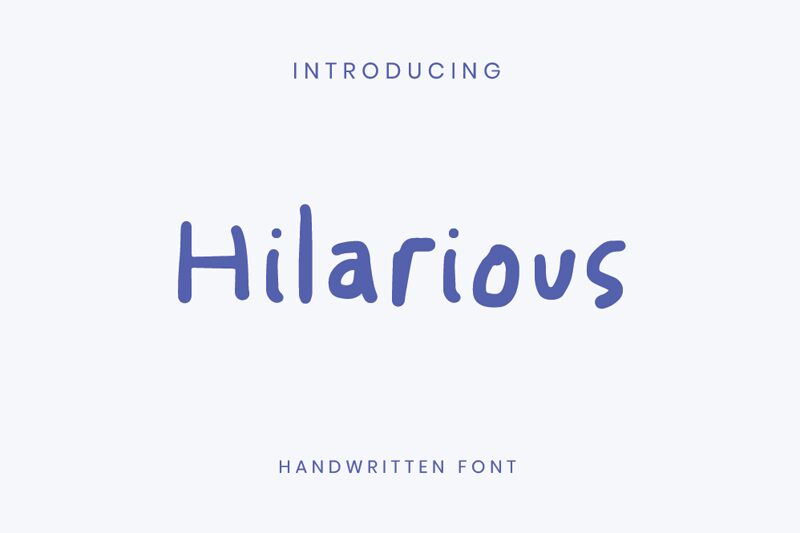
Hilarious HF font family by Just Handwritten Font is a freeware professional tool designed for informal and casual style. A modern handwritten style takes over after the core elements of each letter and number. They present a similar tone like the other lettering styles with the addition of simplicity and age. Versatile and with a universal field of usage, it fits old-school, modern, and experimental design concepts.
The Hilarious HF font family could be used as it to create websites, applications, and software. It can also serve as an inspiration for store signage, packaging labels, clothing branding, posters, album covers, and magazines. It will look beautiful on postcards, personalized cards, infographics, and creative templates.